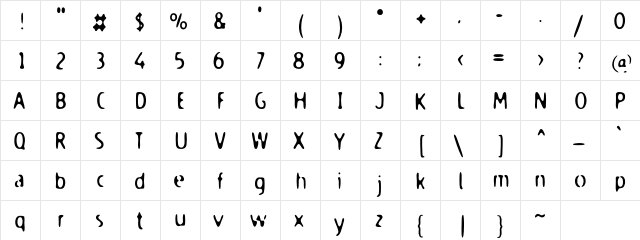
BureaucracyMunicipal Regular
Design Context for BureaucracyMunicipal Typeface
BureaucracyMunicipal takes a measured approach to typography — its balanced proportions and neutral character make it a reliable workhorse for both digital and print work.
Pro Tip: Use BureaucracyMunicipal in both headline and body roles to test its range before committing to a single application.